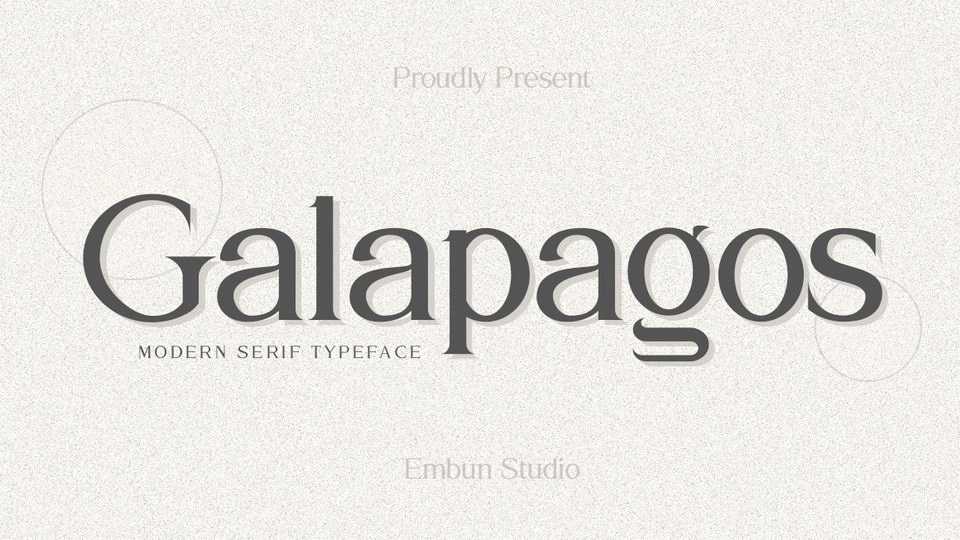
Download Galapagos font, a modern serif typeface inspired by the beauty and serenity of the Galapagos Islands. So, you will find beauty, luxury and serenity in this font when you use it for your project.
Designer: Embun Studio